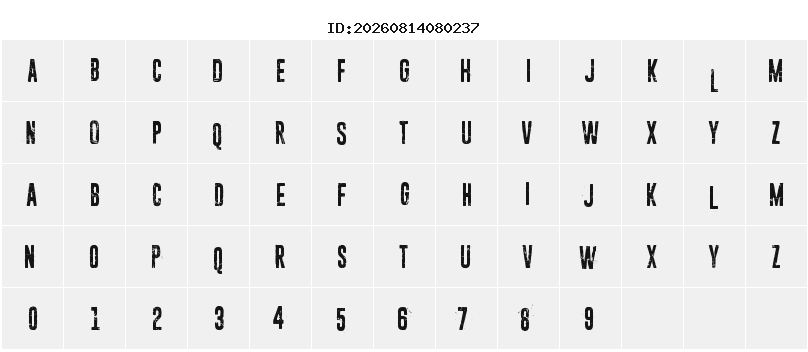
• Font Name: Sun zoom spark
Sun zoom spark.ttf is a modern, elegant sans-serif font designed for ultimate readability and visual harmony. Perfect for branding, headlines, web design, and print materials.